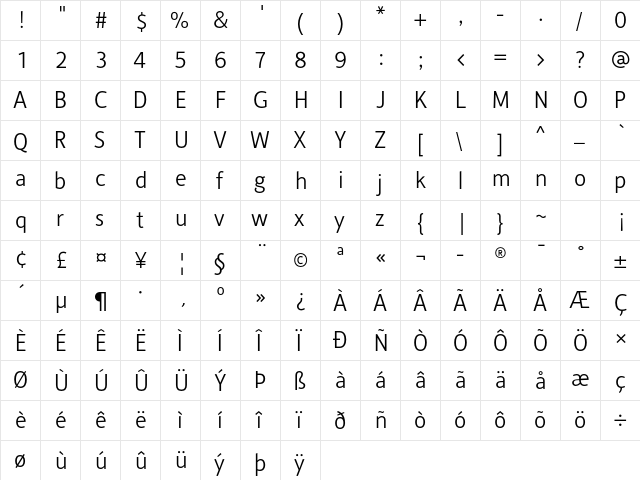
Alber Light
Design Context for Alber Typeface
Alber offers clean, dependable letterforms without strong stylistic allegiance, making it a practical choice for designers who need flexibility. Its slender proportions lend an understated elegance to any composition.
Pro Tip: Pair Alber with a font of contrasting weight or personality to build a more expressive typographic hierarchy.